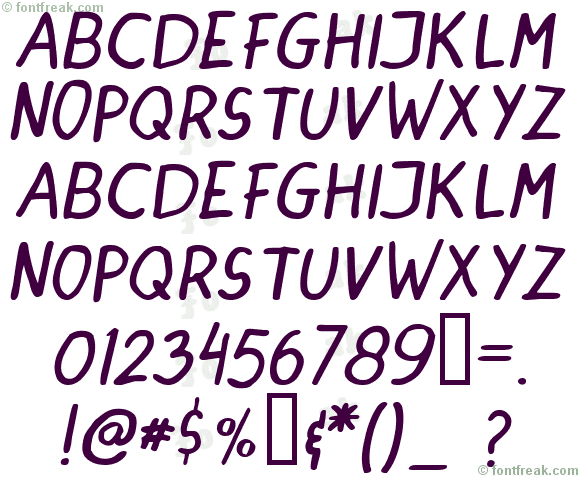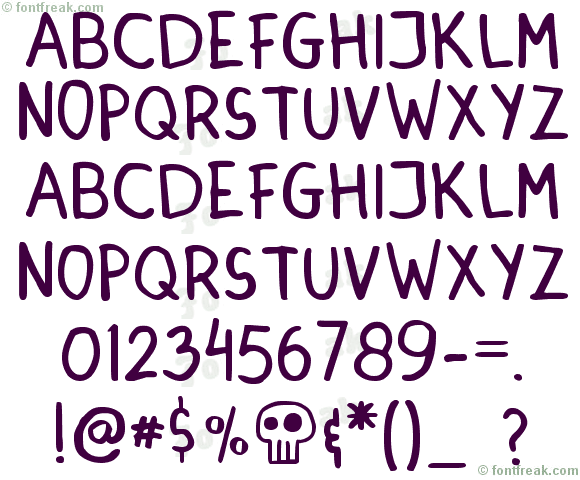
DINSKI CASUAL HANDWRITING
DINSKI CASUAL HANDWRITING Italic
About DINSKI CASUAL HANDWRITING
DINSKI CASUAL HANDWRITING is a unique handwritten typeface designed by Emeralda Noor Achni Halilintar. This font falls into the category of casual script, characterized by its playful and informal aesthetic. The strokes feature a consistent medium weight, creating a friendly and approachable vibe that enhances its handwritten charm. The low contrast in stroke thickness adds to its casual feel, while the slightly irregular spacing mimics the natural flow of human handwriting. This gives it a warm and personal touch, making it suitable for a variety of creative projects.
The versatility of DINSKI CASUAL HANDWRITING makes it an excellent choice for numerous applications. It works wonderfully for wedding invitations, where its informal style can convey a sense of intimacy and joy. Additionally, it is ideal for restaurant menus, providing a welcoming and relaxed atmosphere that invites patrons to explore the offerings. Graphic designers can effectively use this font for branding materials, particularly for small businesses looking to establish a friendly and approachable identity. Moreover, content creators can utilize it in social media graphics to add a touch of personality that resonates with their audience.
The target audience for this font includes graphic designers, small business owners, and content creators who seek to inject a creative flair into their projects. With its unique characteristics and free availability, the DINSKI CASUAL HANDWRITING font free download is an accessible option for anyone looking to enhance their design work.
This font stands out due to its ability to blend casual elegance with a touch of playfulness, making it perfect for those who want to convey authenticity and warmth in their designs. Whether used in print or digital media, DINSKI CASUAL HANDWRITING is sure to leave a lasting impression.